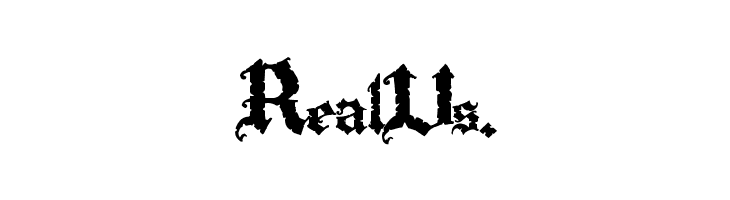
Silk Rose Font
- Font: Silk Rose
( Fonts by Ryan Splint )
A bold, gothic-style font with jagged edges and decorative flourishes, perfect for dramatic themes.